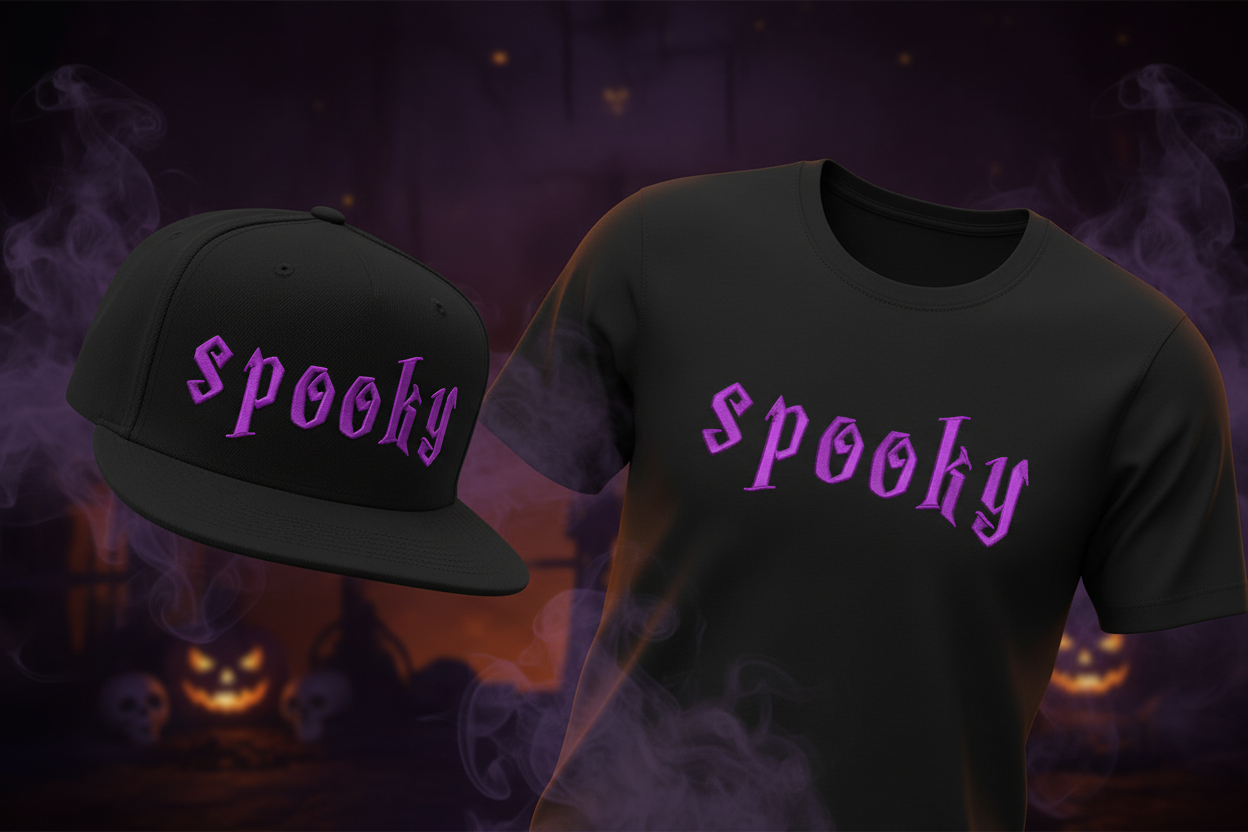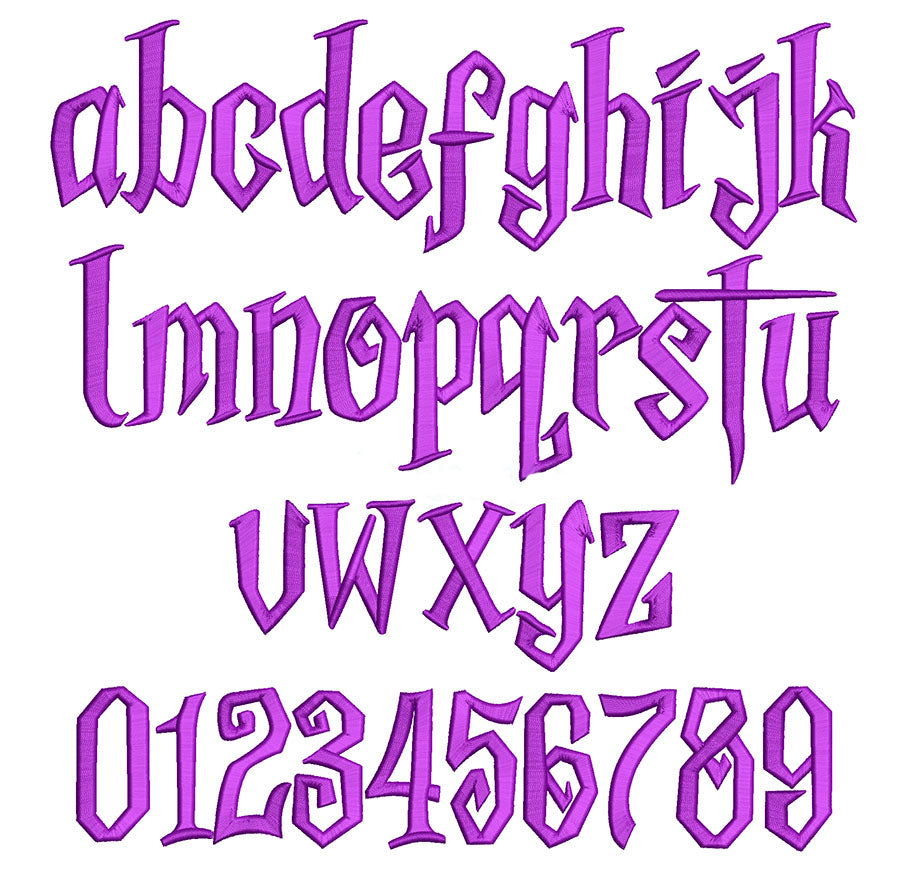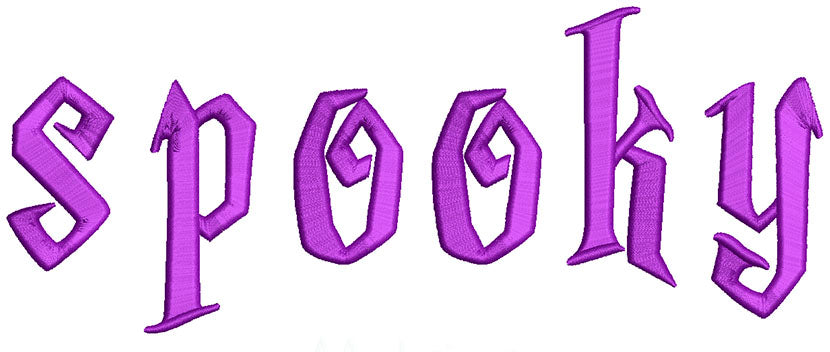
Spooky 3D Puffy Embroidery Font for Halloween - Machine Embroidery Digital Font. BX included
Spooky 3D Puffy Embroidery Font for Halloween
Take your Halloween embroidery to the next level with our Spooky 3D Puffy font — a bold, dimensional digital font designed specifically for 3D puffy foam embroidery. Perfect for hats, caps, bags, costumes, and any Halloween project that needs extra impact.
Font Details
- Includes: Lower case a-z and Numbers 0–9
- Designed and optimized for 3D puffy foam embroidery
- High stitch quality for bold, crisp 3D results